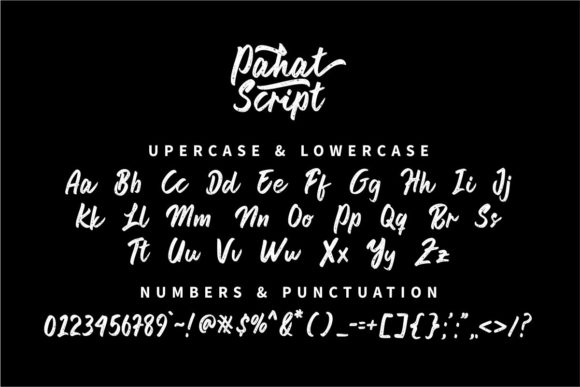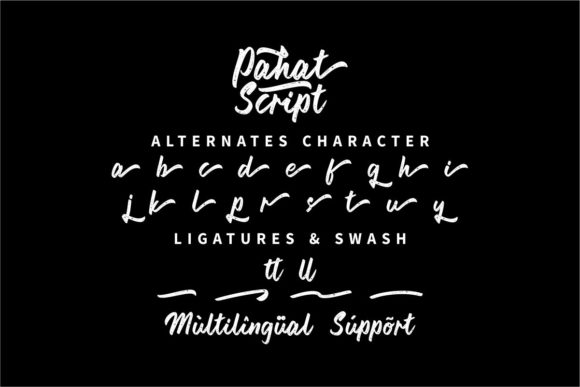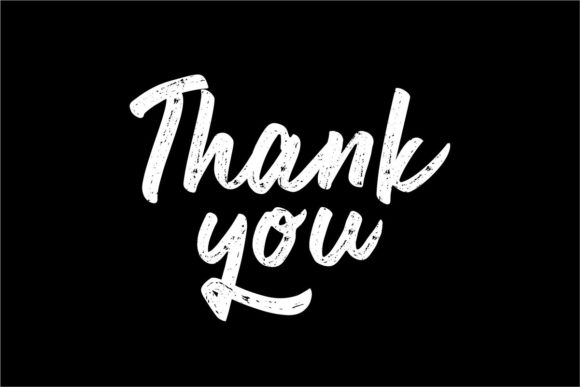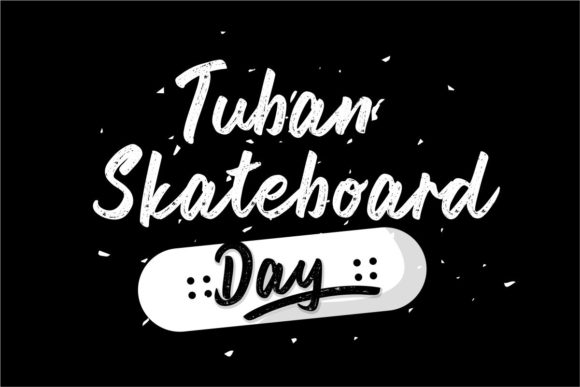
Introduction to Pahat Script Font
Have you ever found yourself staring at a blank page, desperately searching for the perfect font to bring your creative vision to life? The struggle is real, but today, we’re excited to introduce you to a game-changing design resource that will take your projects to the next level: the Pahat Script Font.
This chic, refined script font exudes sophistication and elegance, making it the perfect match for any creative project. Whether you’re designing a wedding invitation, a logo, or a marketing campaign, Pahat Script Font’s stylish alternates and ligatures will add a touch of class and refinement to your work.
What sets Pahat Script Font apart from other high-quality fonts is its PUA encoding, allowing you to access all of the glyphs and swashes with ease. This means you can download it for free and start creating with confidence, knowing you have a versatile and reliable design resource at your fingertips.
Key Features of Pahat Script Font
- High-quality design: Pahat Script Font offers a beautiful, elegant script font perfect for creative projects.
- Unique characteristics: Pahat Script Font features a unique, handwritten style with subtle flair and movement, adding a touch of personality to any design.
Honest Review: Pahat Script Font
As a designer, I’m always on the lookout for unique and high-quality fonts to elevate my creative projects. Recently, I had the chance to try out the Pahat Script Font, and I must say it’s a hidden gem.
One of the standout features of this font is its elegant and flowing script design, perfect for adding a touch of sophistication to any design project. ✨ The Pahat Script Font also comes with a transparent background, making it super easy to use and customize to fit your design needs.
Here are some of the pros and cons I noticed while working with this font:
- Works well for invitations, wedding designs, and other elegant projects
- ⚠️ Limited font sizes and weights available
- ⚠️ Not suitable for bold or dramatic designs
Overall, I’m impressed with the Pahat Script Font, and I’d definitely recommend it to designers looking for a high-quality, elegant font for their creative projects.
Getting the Most Out of Pahat Script Font
To get the most out of the Pahat Script Font, experiment with different font sizes, colors, and combinations with other fonts. You can also use it in conjunction with other design elements, such as images and graphics, to create a unique and eye-catching design.
The Pahat Script Font is ideal for a variety of creative projects, including wedding invitations, branding materials, and social media graphics. Its high-quality design and transparent background make it a versatile and effective design resource.